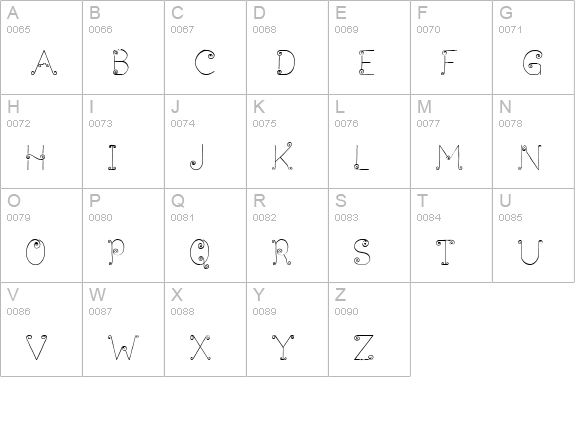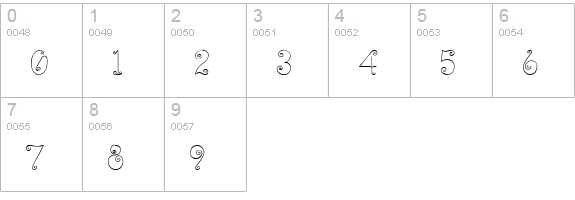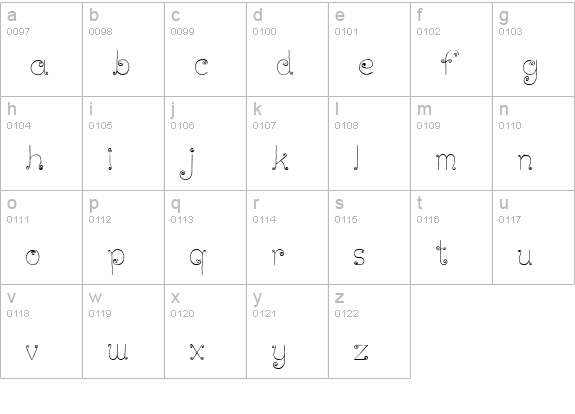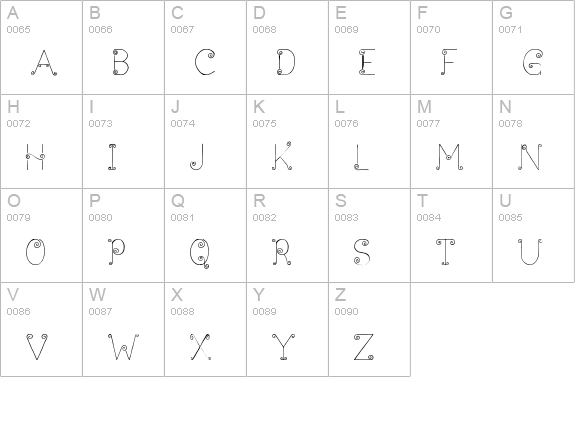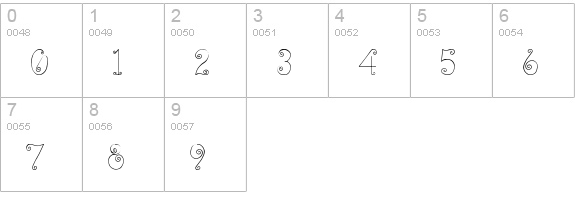
Lickcurl Petite Font Details
Lickcurl Petite font is a charming and whimsical typeface that exudes elegance and playfulness. Its delicate strokes and graceful curves make it a perfect choice for projects that require a touch of sophistication and creativity. This font is ideal for invitations, greeting cards, branding, and other design projects where a refined and stylish look is desired. What makes Lickcurl Petite font even more appealing is that it is available for free download at FontsMarket.com. This means you can easily access this beautiful typeface without any cost, making it a valuable addition to your font collection. Don't miss out on the opportunity to enhance your designs with the delightful Lickcurl Petite font, freely available for your creative endeavors.